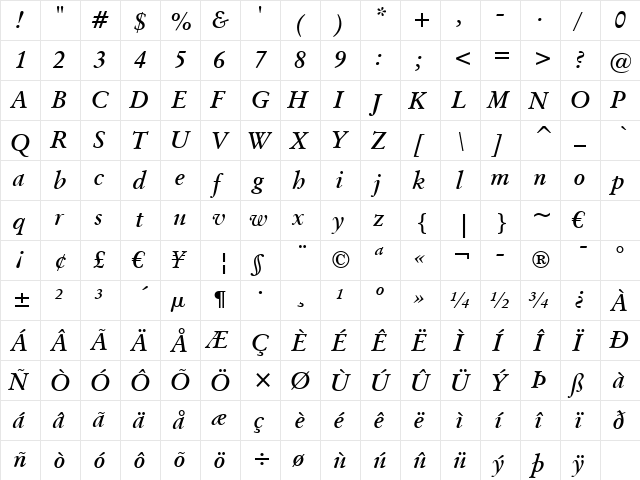
OrigGarmnd BT Bold Italic
Design Context for OrigGarmnd BT Typeface
OrigGarmnd BT is a composed and adaptable typeface that performs quietly and consistently across a wide range of design contexts. Its italic angle brings a sense of urgency and motion to the letterforms. Its bold stroke weight gives it real presence on the page.
Pro Tip: Try OrigGarmnd BT for annotation and caption copy alongside an upright companion — the contrast in angle creates a dynamic but ordered typographic system.